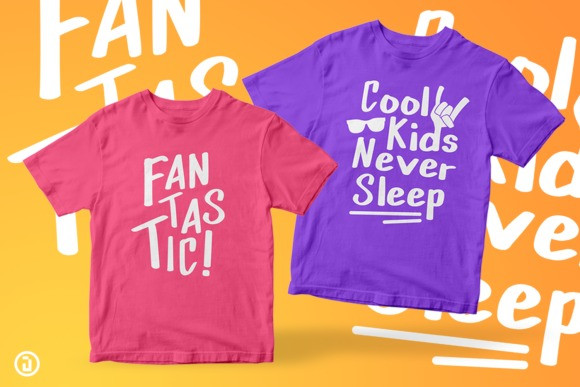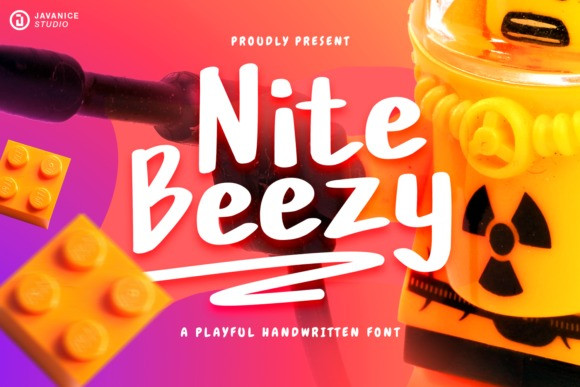
Nite Beezy Brush Font
Nite Beezy is a playful and brushed handwritten font. It is perfect for any branding project such as logos, t-shirt printing, creative products, and more. It will look extraordinary in a variety of contexts.